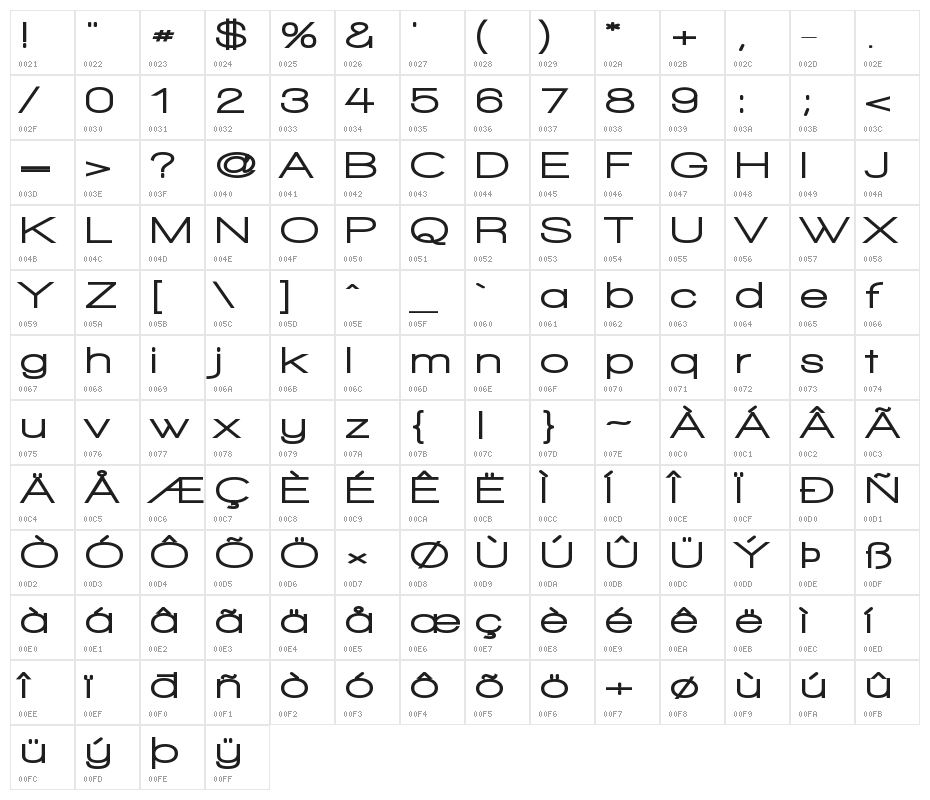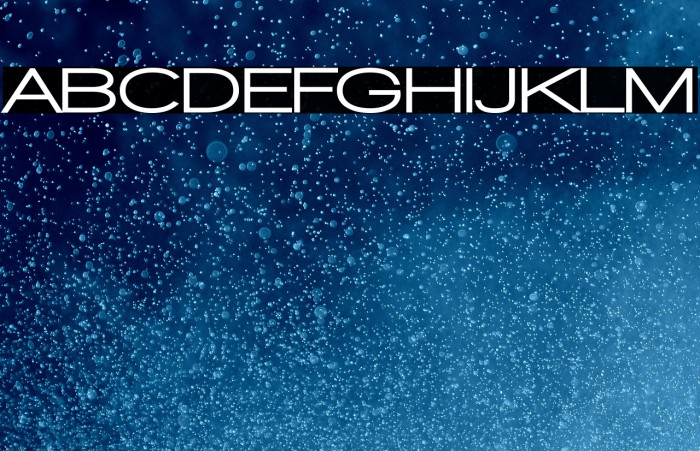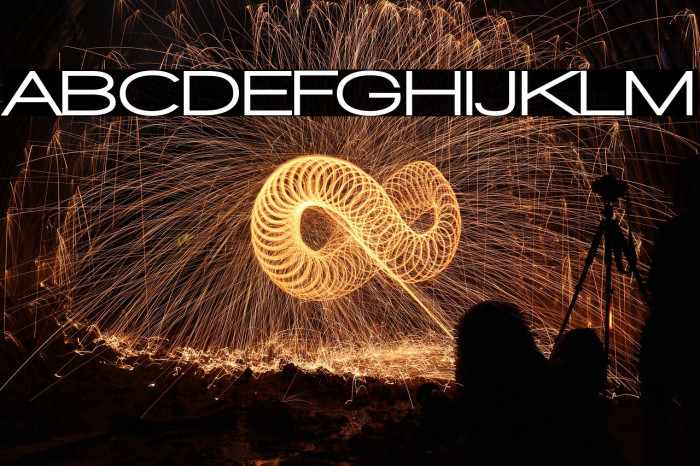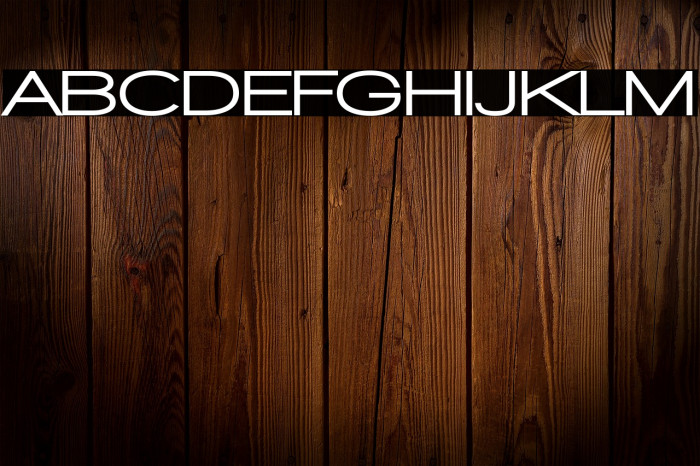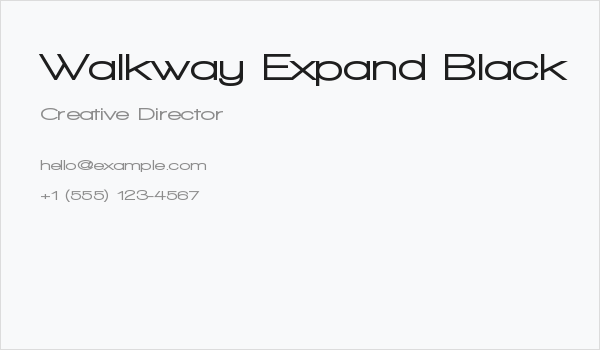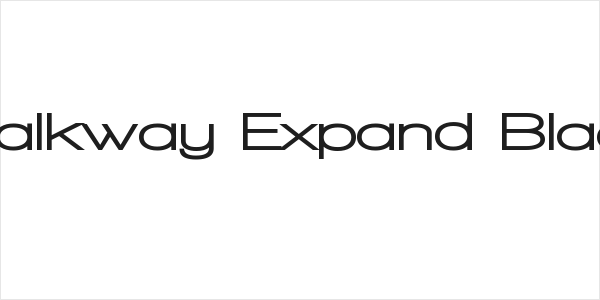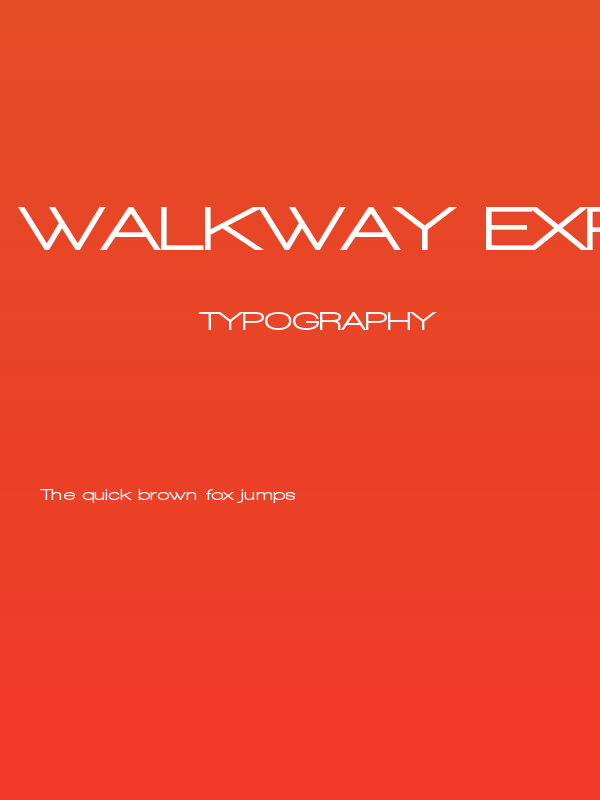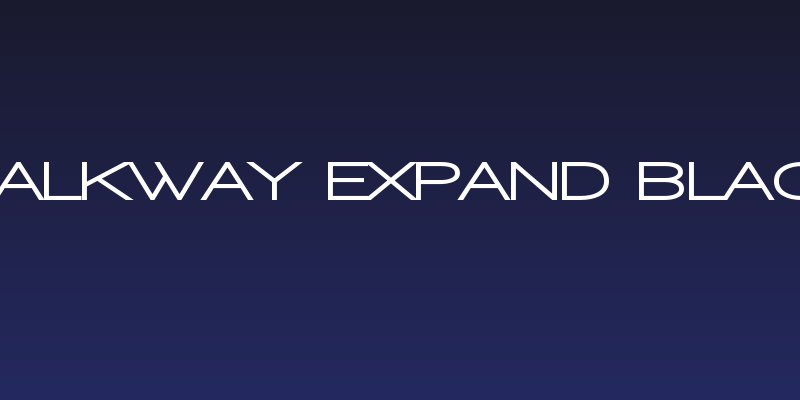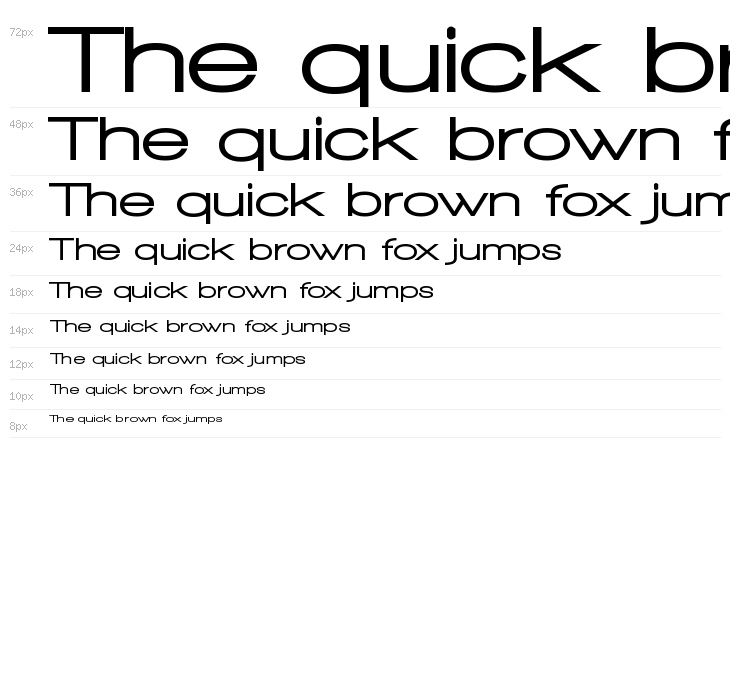
Walkway Expand Black Font
Walkway Expand Black Description
This font features a modern, geometric sans-serif style with clean, straight lines and a uniform stroke width. The characters are expanded, giving them a wide appearance, which enhances readability and provides a contemporary aesthetic. The uppercase letters are bold and assertive, while the lowercase letters maintain a consistent design with rounded edges that soften the overall look. The numerals are clear and distinct, matching the style of the alphabetic characters. Special characters are well-integrated, maintaining the font's cohesive design. This font is ideal for projects that require a modern and professional appearance.
| Proposed Projects | Ideal for branding, headlines, posters, and digital media where a modern and bold statement is needed. |